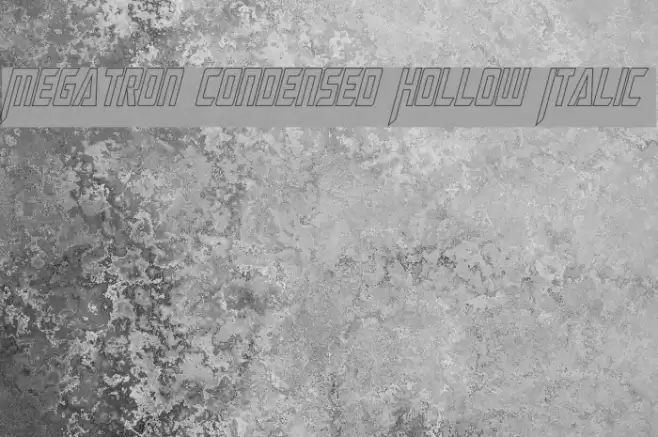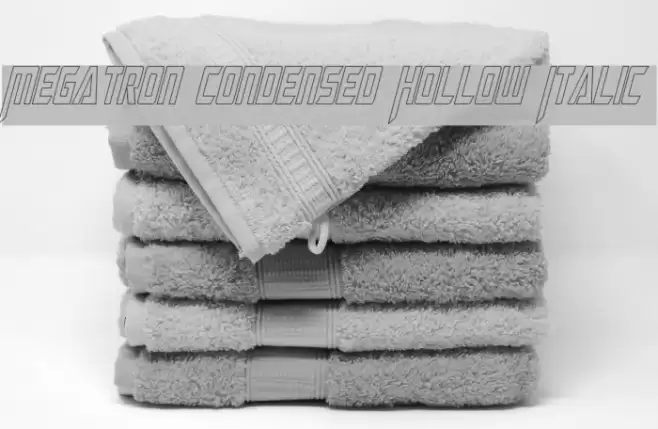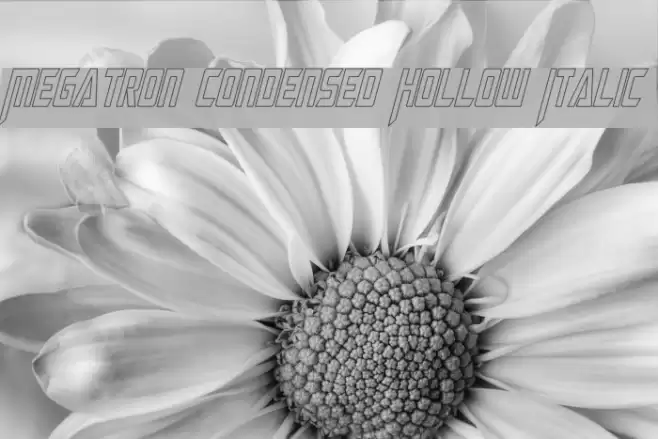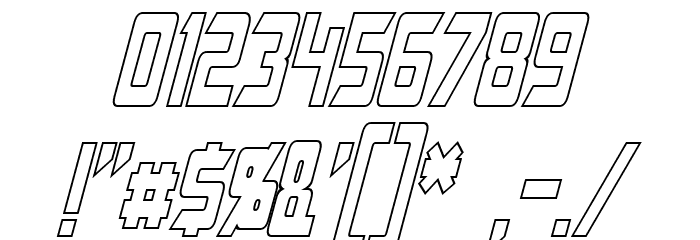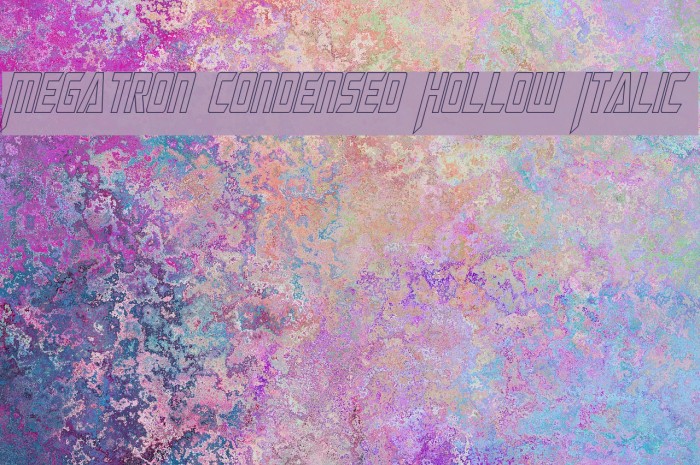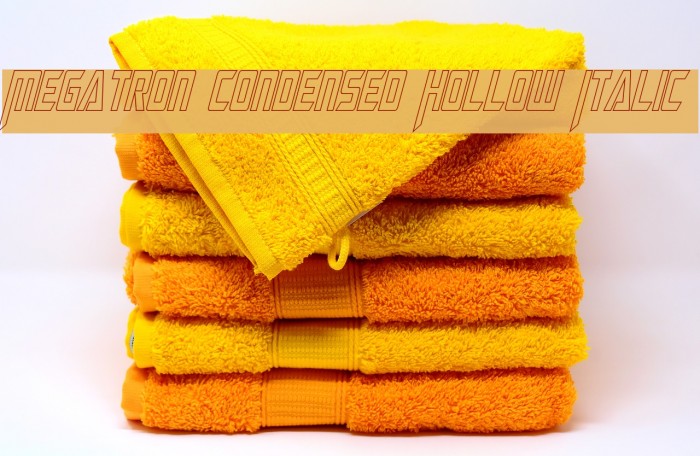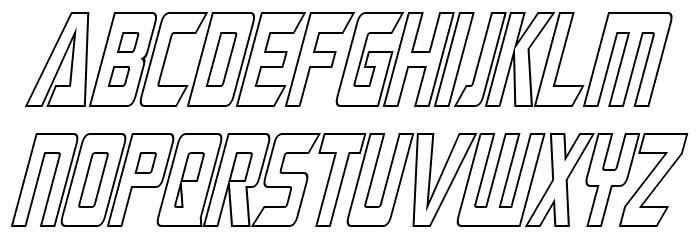
Megatron Condensed Hollow Italic
This font features a futuristic and dynamic design with a condensed and hollow appearance. The italicized style adds a sense of motion and speed, making it ideal for projects that require a modern and edgy look. The characters are outlined, providing a unique hollow effect that enhances its visual appeal. The angular and geometric shapes of the letters contribute to its bold and striking presence. This font is perfect for creating eye-catching headlines, logos, and posters that need a contemporary and innovative touch.
A futuristic, condensed, hollow, and italicized font with a dynamic and modern design.
- Width: Condensed